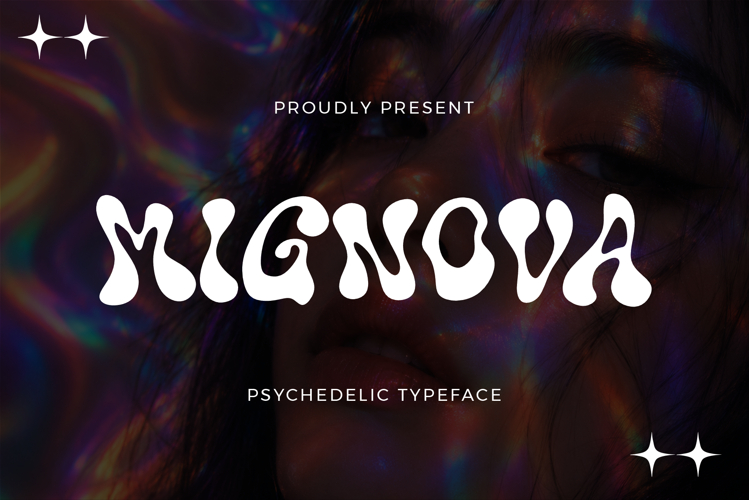
Mignova | Psychedelic Wavy Groovy Retro Font
Introducing Mignova, a psychedelic wavy groovy retro font inspired by the vibrant visual culture of the 60s and 70s era. Designed with fluid organic curves, melting shapes, and funky retro aesthetics, Mignova brings hypnotic energy and artistic expression into modern typography compositions.
Mignova captures the spirit of psychedelic posters, groovy music culture, retro festivals, vintage album artwork, and colorful artistic movements. The flowing wavy letterforms create a dreamy visual rhythm filled with personality, movement, and nostalgic atmosphere while still maintaining readability for bold display use.
This font is perfect for creators looking to add retro psychedelic vibes into branding, posters, packaging, fashion visuals, music artwork, social media graphics, editorial layouts, merchandise, and experimental typography projects. Its unique organic structure instantly transforms ordinary text into expressive visual art.
The handcrafted curves and melting shapes create an authentic groovy aesthetic inspired by vintage typography trends and psychedelic design culture. Every character was carefully designed to produce playful movement and bold visual impact, making Mignova suitable for standout headlines and artistic compositions.
Features- Uppercase Characters
- Lowercase Characters
- Numbers & Punctuation
- Psychedelic Wavy Style
- Groovy Retro Aesthetic
- Organic Curved Letterforms
- Funky Display Typography
- Bold Visual Presence
- Artistic Retro Character
The flowing psychedelic shapes create dynamic typography compositions with strong retro atmosphere. The playful curves and melting details give every word unique visual personality, making titles feel expressive, artistic, and memorable.
Mignova works beautifully in colorful retro layouts, vintage-inspired branding systems, funky music visuals, artistic packaging, and experimental display typography. Its organic letterforms create movement and rhythm that instantly capture attention.
The multilingual support allows broader creative flexibility across multiple languages, while numbers and punctuation complete typography systems for professional visual compositions.
Inspired by retro visual culture, psychedelic artwork, vintage music aesthetics, and groovy typography trends, Mignova delivers nostalgic artistic energy with modern usability.
Perfect for bold creative projects that need expressive typography with retro soul and psychedelic personality.